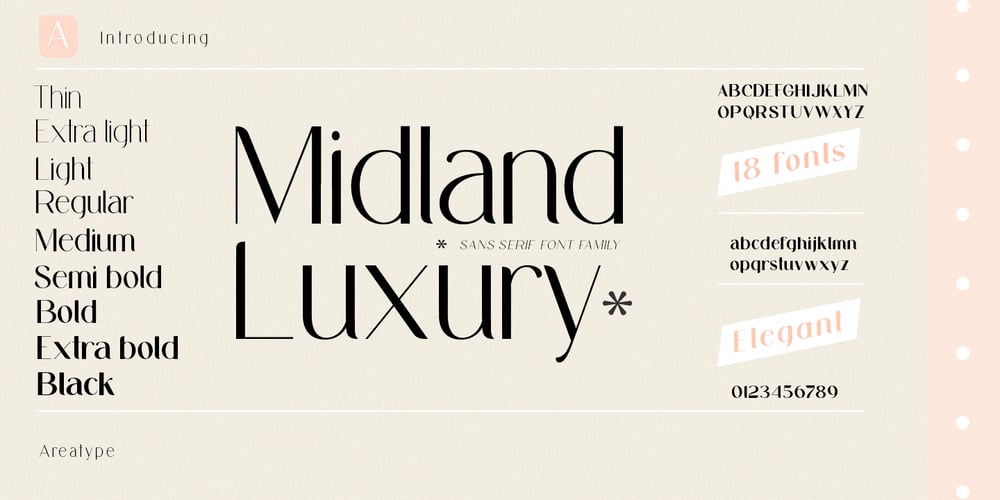
Midland Luxury
Midland Luxury font
Midland Luxury Font Family was designed by Ambia and published by Areatype. Midland Luxury contains 18 styles and family package options. Midland Luxury Sans serif is a very versatile font.perfect for magazine images, to wedding invitations, to branding, poster design, and more.Files included:Midland Luxury FamilyMidland Luxury Italic FamilyNumerals, Punctuation & LigaturesThanks so much for looking, I really hope you enjoy it and please don’t hesitate to drop me a message if you have any issues or queries 🙂